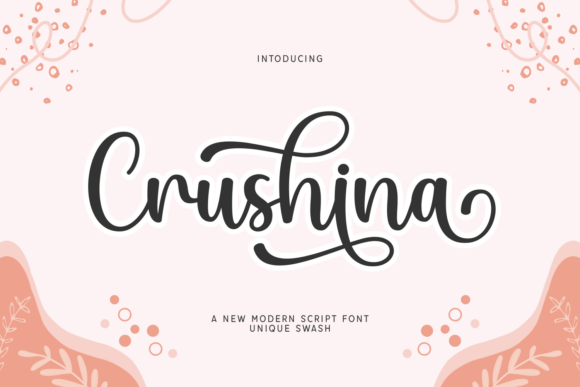
Introducing Crushina Font: Elevate Your Designs with Elegance and Charm
In the world of typography, fonts play a crucial role in conveying the tone and personality of a design. Among the numerous fonts available, Crushina Font stands out as a modern script font that embodies elegance, sophistication, and charm. With its smooth curves and unique swashes, Crushina is perfect for creating stunning designs that leave a lasting impression.
What is Crushina Font?
Crushina Font is a modern script font designed to add a touch of elegance and charm to any creation. Its smooth curves and unique swashes make it an ideal choice for designers looking to create stunning designs that exude sophistication and refinement.
Whether you’re working on a branding project, designing invitations, or creating feminine-themed designs, Crushina Font is the perfect choice. Its versatility and flexibility make it suitable for a wide range of applications, from digital designs to print materials.
Key Features of Crushina Font
- Smooth Curves: Crushina Font features smooth, flowing curves that give it a elegant and refined look.
- Unique Swashes: The font includes unique swashes that add a touch of charm and personality to any design.
- Modern Design: Crushina Font boasts a modern design that makes it perfect for contemporary designs and branding projects.
- Feminine Touch: The font’s elegant and refined design makes it ideal for feminine-themed projects and designs.
Uses of Crushina Font
Crushina Font is a versatile font that can be used for a wide range of applications, including:
- Branding: Use Crushina Font to create stunning brand logos, business cards, and letterheads that exude elegance and sophistication.
- Invitations: Add a touch of charm and elegance to your invitations, wedding cards, and other formal events.
- Feminine Projects: Crushina Font is perfect for designing feminine-themed projects, such as beauty and fashion branding, packaging, and advertising.
- Digital Designs: Use Crushina Font to create stunning digital designs, including social media graphics, blog headers, and website titles.
Benefits of Using Crushina Font
Using Crushina Font offers numerous benefits, including:
- Elegance and Sophistication: Crushina Font adds a touch of elegance and sophistication to any design.
- Versatility: The font’s versatility makes it suitable for a wide range of applications and designs.
- Unique Design: Crushina Font’s unique swashes and smooth curves make it stand out from other fonts.
- Easy to Read: The font is easy to read, making it perfect for body text and headings.
Tips for Using Crushina Font
To get the most out of Crushina Font, follow these tips:
- Pair with Other Fonts: Pair Crushina Font with other fonts to create a unique and visually appealing design.
- Use for Headings: Use Crushina Font for headings and titles to add a touch of elegance and sophistication.
- Experiment with Colors: Experiment with different colors to find the perfect combination that suits your design.
- Keep it Simple: Keep your design simple and clean to let Crushina Font shine.
In conclusion, Crushina Font is a modern script font that embodies elegance, sophistication, and charm. With its smooth curves and unique swashes, it’s perfect for creating stunning designs that leave a lasting impression. Whether you’re working on a branding project, designing invitations, or creating feminine-themed designs, Crushina Font is the perfect choice.